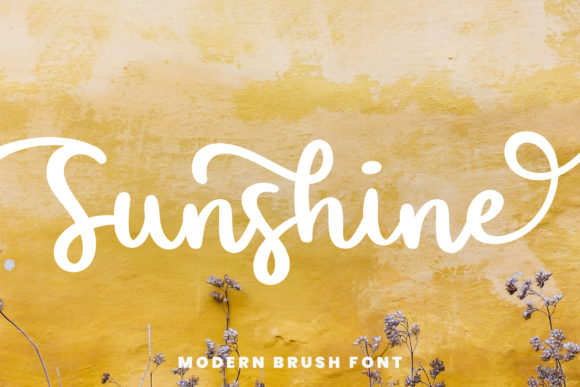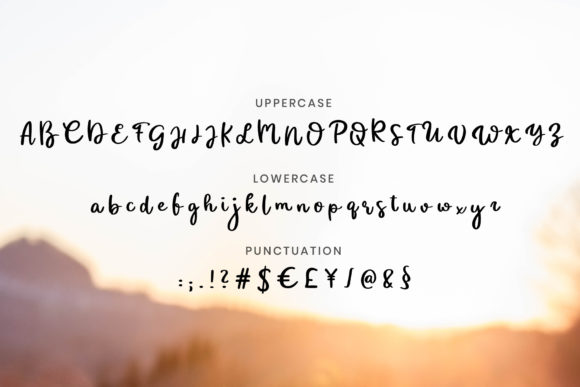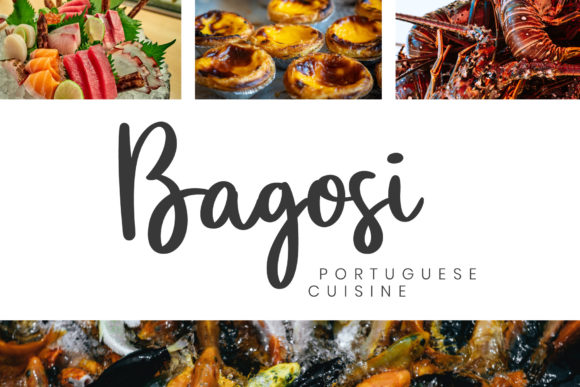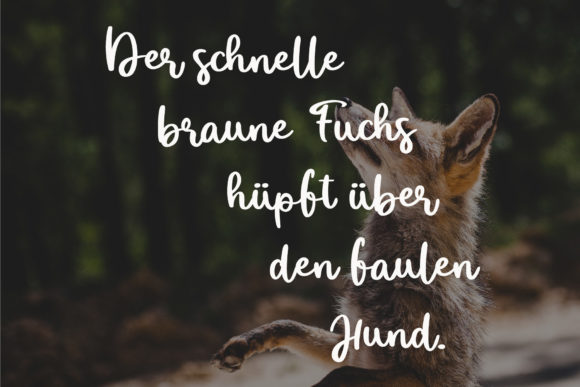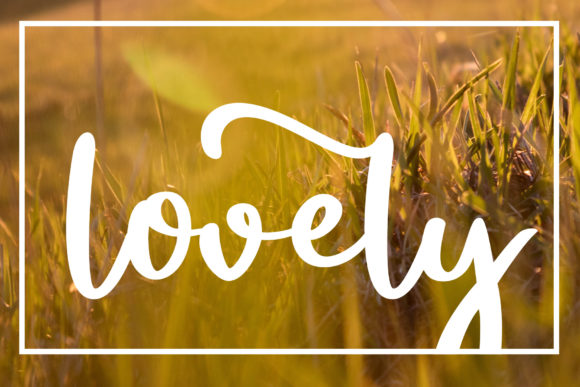
Sunshine Font
About Sunshine Font
Sunshine is a romantic and sweet calligraphy typeface with characters that dance along the baseline. It features a varying baseline, smooth lines, gorgeous glyphs and stunning alternates.
Add this sunny and joyful font to your designs and notice how they instantly brighten up.